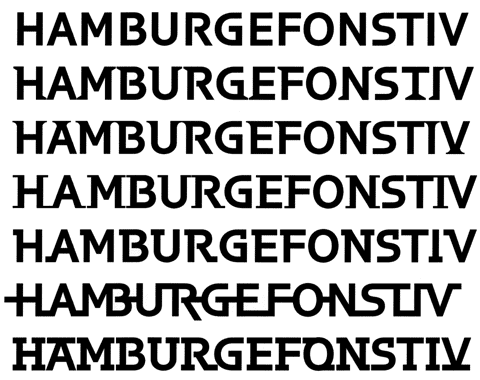
I must admit, I'm a little nervous at posting up some work for the first time. The typeface I've posted up is my first attempt at type design
I'm not much of a type designer myself, so I can't
go into depth about what to improve. I do look
at a lot of type, and this looks like the work
of Hubert Jocham. Maybe studying some of his
designs will give you some hints on how to proceed.
Darren congratilations and welcome with this very interesting sans serif which I think that have very potential !!. I like very much this kind of forms. I would so want to make some suggestions:
1 > The the capitals and figures have more impact than lowercase letters.
2 > The c/l and l/c ( Ss ) the spine are too contrast that the others letters, like the caracthers ( MNQZz ).
3 > The letter l/c ( a ) is little too condensed that the others I think.
But I think you are going in the right way, the work have very good apperence!
Do you have more letters to show?
Wow! I didn't expect such a response and great advice so soon - this is fantastic, and worth so much - thankyou. It's gonna take me a bit to digest all of your comments and advice, but I fully intend on developing the typeface further. I'll post regular 'updates,' to let you all see the way the face is developing. I've got some free time coming up at the end of the week, but that 'free' time has now been filled with working on the typeface!
I've done a quick text setting using the face. I haven't done any modifications to the face since the first post. Basically, I've imported the face into FontLab (the first image is taken from illustrator where I drew the letters initially), created a font file and then set the text. I haven't done any work on character spacing/kerning etc etc, it's just a very raw and basic setting. Hope this helps.
Thanks for all of your input - I've been working on the typeface recently (though trying to get some spare time to do so has proved pretty difficult!), making some amendments and changes which you all suggested. I feel that the changes have really helped the face start to look a little more 'professional(!)' So I thought I would post up a new image. I haven't worked on any of the character spacing or hinting (yikes - that bit scares me) so far - and I'm also working on all of the remaining characters, which, hopefully, I'll be able to post up soon.
Any comments or recommendations/thoughts about the amended face will be greatly appreciated.
Thanks for the reply Eka. I hope you're finding this site as valuable as I am. To be honest, I'm pretty new at designing fonts (this being the first of hopefully many), and the advise that the guys gave me about version 1 has helped me learn and give me a bit of encouragement to push the work further. Reading through all the other critiques also opens your eyes to some fantastic work.
I'm surprised nobody has said anything yet about the lined numerals!
I agree, they do need some work! They're next in the long list of amendments!
The first text setting using the font. I need to start doing some work on the character spacing next. Any comments from anyone would be greatly appreciated.
Also, there's a pdf version here if anyone wants to print it out to see the face on paper?
It forms a nice, serene pattern. Just the lc "g" is maybe sticking out a bit: its structure is calm enough, so I'd say your descenders might be too long. As for the spacing, it's really way tight.